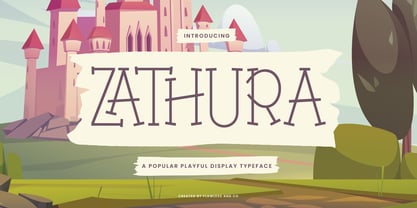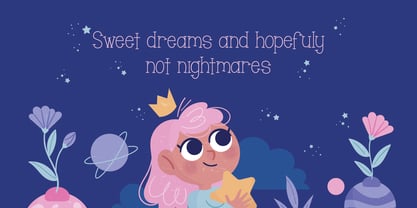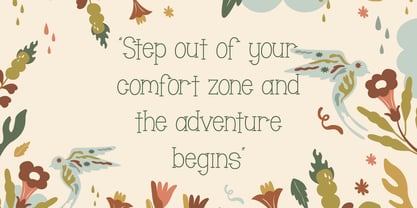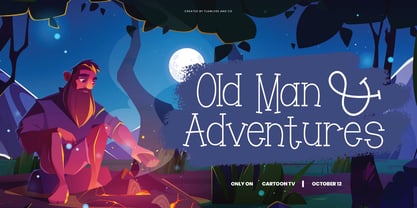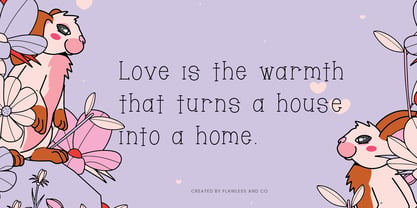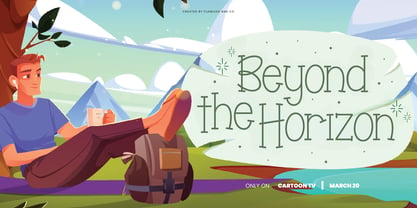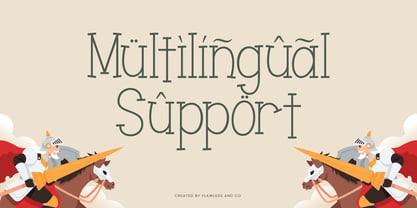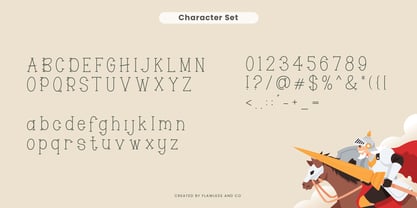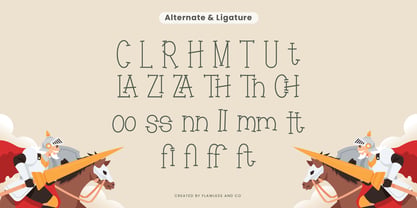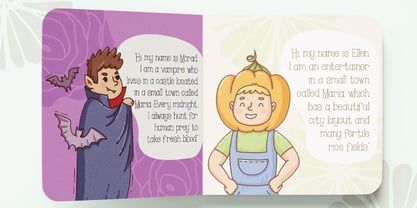
Zathura
by Flawlessandco
The Zathura Font Family was designed by Achmad Yani and published by Flawlessandco. Zathura contains 1 styles. More about this family
Zathura is a cheerful display font inspired by the world of cartoons. Perfect for children’s book titles, toy packaging, birthday invitations, cartoon logos, and other fun-themed projects, Zathura adds a sense of wonder and creativity wherever it’s used. Its lively look makes it an ideal choice for designs that aim to entertain and delight! Features : Multilingual, Uppercase alphabet A-Z, Lowercase alphabet a-z, Numbers 0-9, Some punctuation, Alternates & Ligatures NOTE: For all the characters are also available, accessible in the Adobe Illustrator Glyphs Panel, or in Adobe Photoshop Character Open Type Panel. If you need help, just write me! Thanks so much for checking out my shop!
Designers: Achmad Yani
Foundry: Flawlessandco